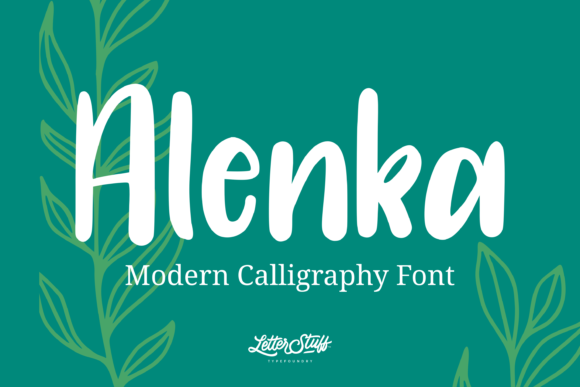
Have you ever been brainstorming ideas for a new project, only to have a spark of inspiration hit you as soon as you start sketching out some rough typography? For many designers, it’s the perfect font that can make or break a design. That’s why we’re excited to introduce you to the Alenka Font, a modern script font that’s sure to add a fun and playful touch to your designs.
With its bold letters and perfect readability, the Alenka Font is a valuable addition to any designer’s toolkit. Whether you’re creating eye-catching logos, adorable invitations, or social media promo images, this font is sure to make your designs stand out. Its versatility and charm make it a must-have for designers looking to add a personal touch to their work.
Alenka Font Key Features
- Font Family: Alenka
- Unique Characteristics: Hand-drawn, elegant, and cursive script font with a vintage touch
Designer Review: Alenka Font
First off, let’s talk about what works well with Alenka Font ✨. I love its unique, playful feel, perfect for creative projects that need a bit of whimsy. The font’s curvy lines and rounded edges make it an excellent choice for illustrations, children’s books, or any design that requires a friendly tone. Its openness and legibility also make it suitable for longer passages of text.
Here are some specific features that I enjoy about Alenka Font:
- Expressive and emotive, making it perfect for projects that require a personal touch
- Works well in bold, perfect for headings or titles that need to stand out
- Can be used for a variety of design styles, from minimalist to maximalist
Now, let’s talk about some limitations ⚠️. While Alenka Font is a great choice for many projects, it may not be the best fit for more formal or professional designs. The font’s playfulness and expressiveness may come across as unprofessional in certain contexts. Additionally, the font’s size may become less readable at smaller font sizes, so be mindful of that when using it.
Overall, I think Alenka Font is a great addition to any designer’s toolkit. While it may have some limitations, its unique feel and expressiveness make it a great choice for creative projects that need a bit of personality.
Alenka Font is a beautiful, elegant script font that works well for:
Formal business letters and presentations
Artistic and creative projects
To get the most out of Alenka Font, experiment with different font sizes, colors, and styles to create a unique look.
Project Ideas Using Alenka Font
Project 1: Whimsical Tea Shop Menu
Create a unique and inviting menu for a tea shop using the Alenka Font.
How to use Alenka Font: Set the font as the primary font for the menu, using it for headings and body text. Pair it with a elegant serif font for a classic look.
Yes, the Alenka Font is a highly customizable font that allows for various modifications, including font size, color, and style. You can also use font editing software to customize the font to suit your specific design needs.